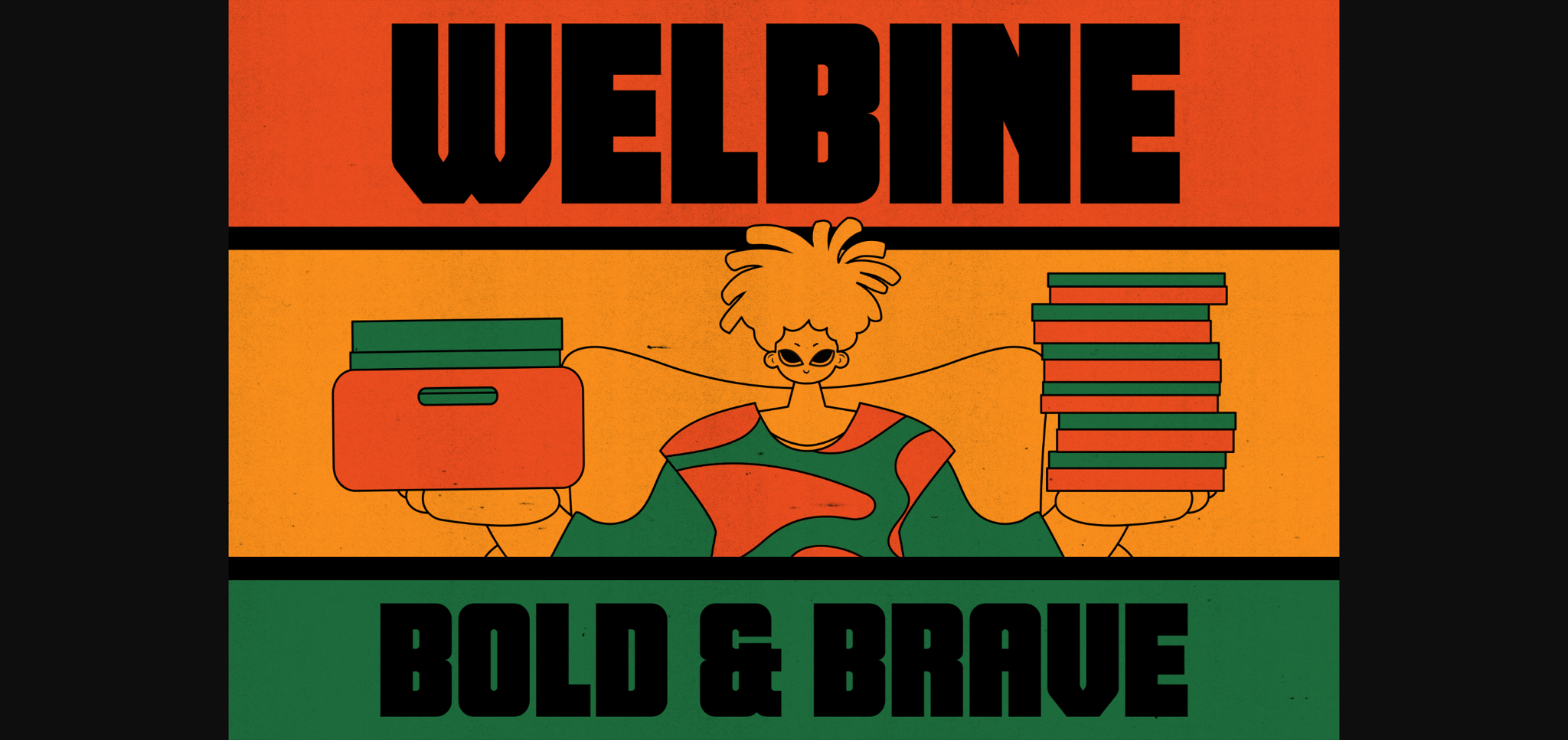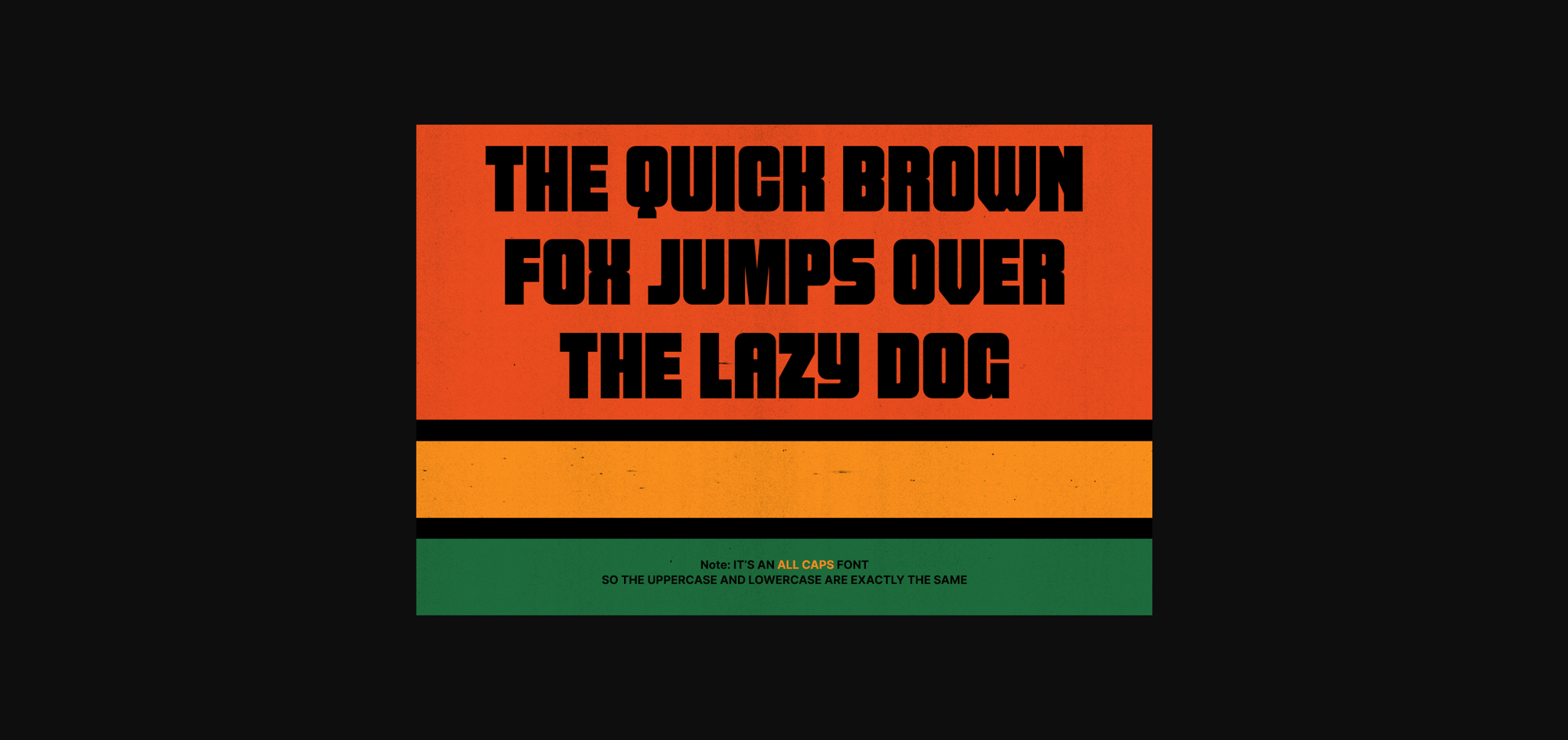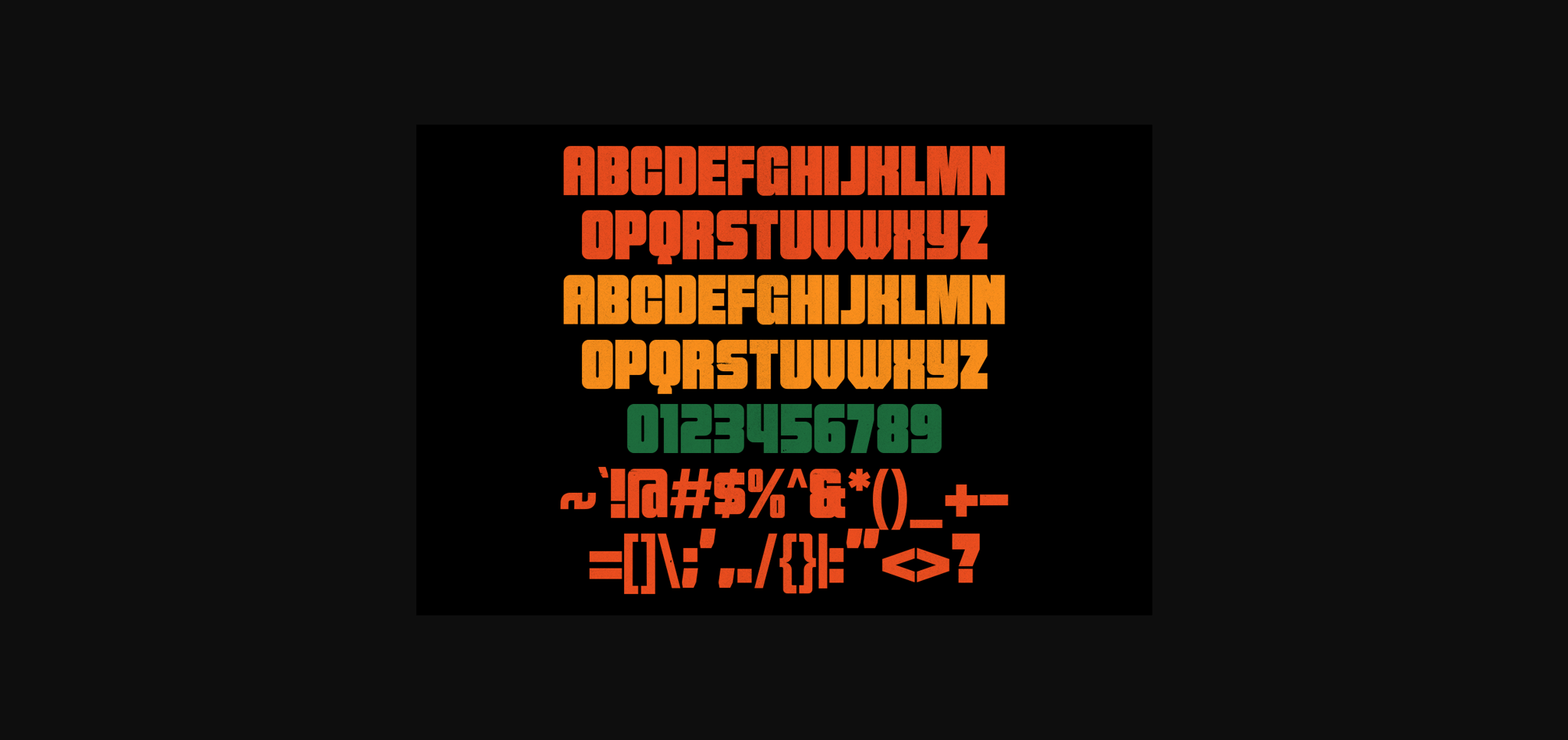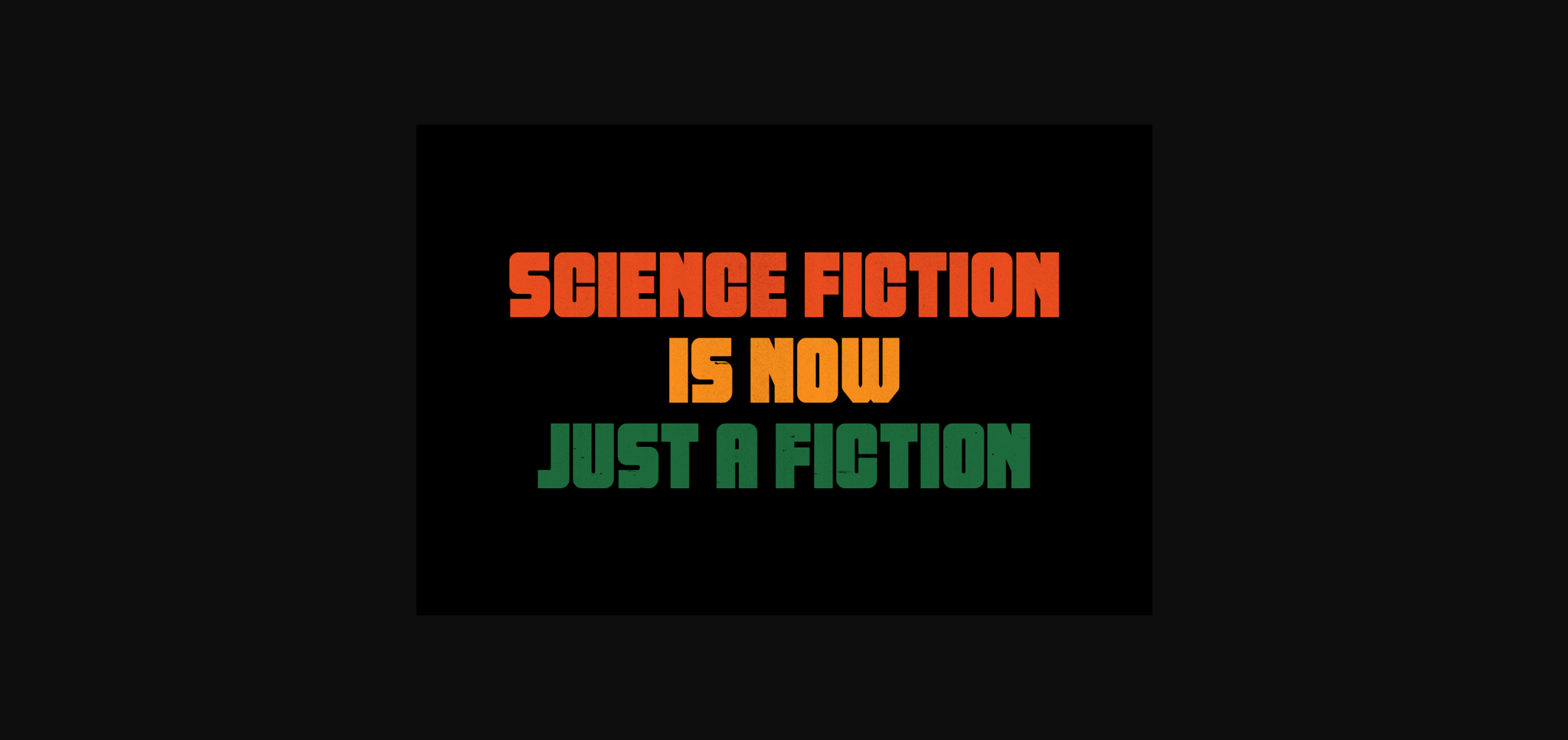
Welbine Font
About Welbine Font
Blast off to a typographic galaxy with this bold, boxy font that channels the retro-futurism of vintage sci-fi and space age packaging.
Welbine is chunky, geometric letterforms evoke the sleek spaceships and chrome-plated robots of classic sci-fi art. Imagine the titles of pulp sci-fi novels or the bold lettering on a ray gun box, brought to life in a modern, eye-catching font.
More than just a throwback. Its clean lines and sharp angles give it a contemporary edge, making it perfect for a variety of design projects. Use it for logos, posters, packaging, headlines, or even web design to add a touch of retro sci-fi cool.